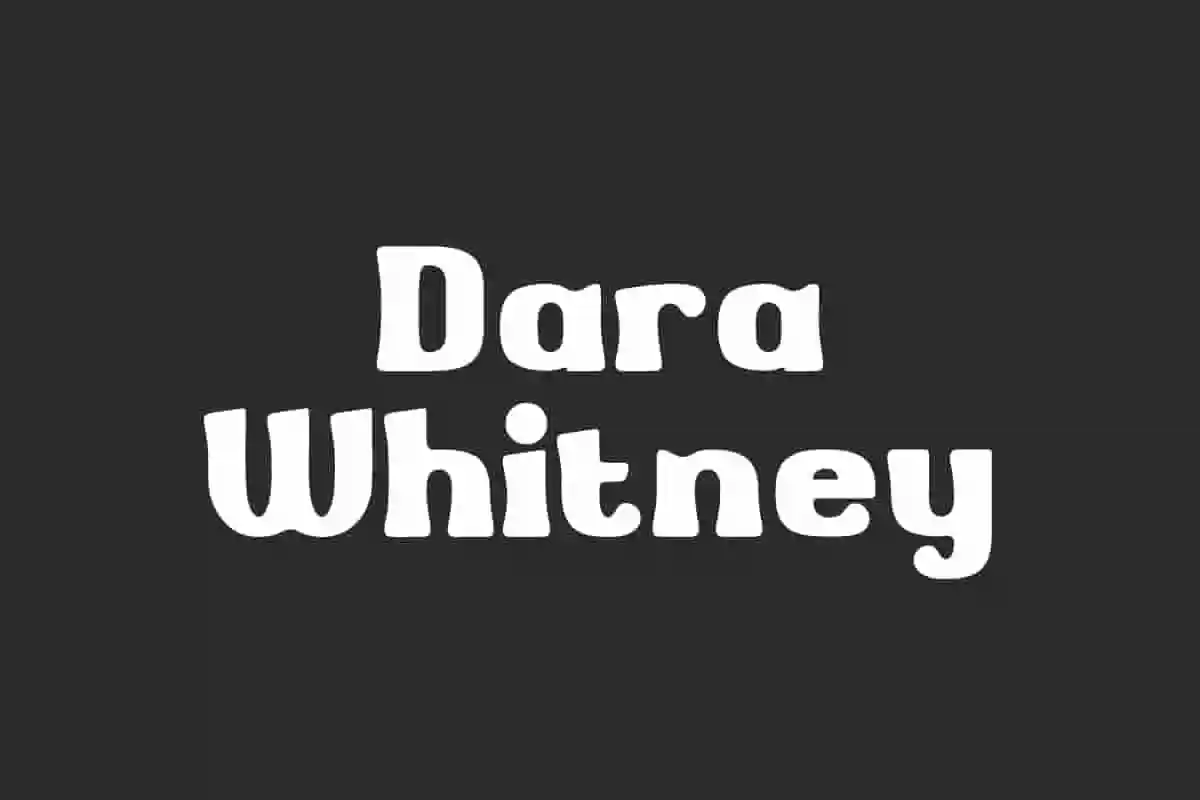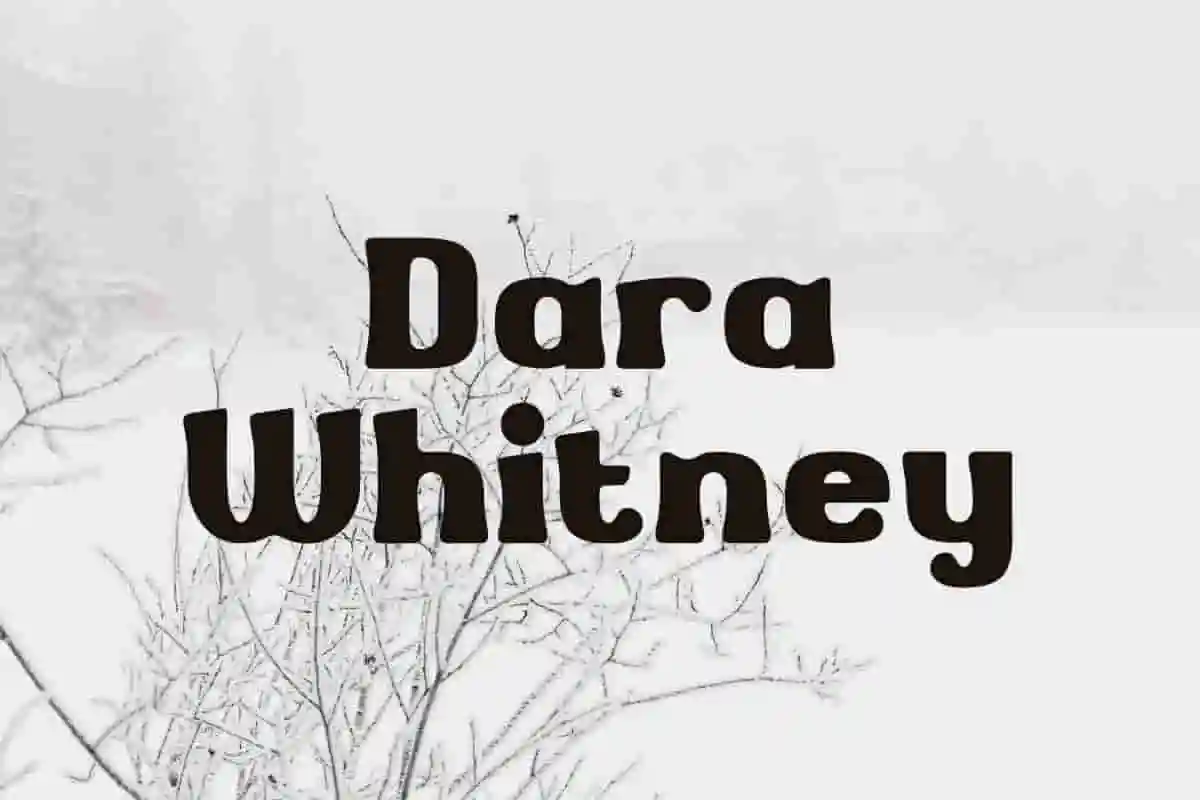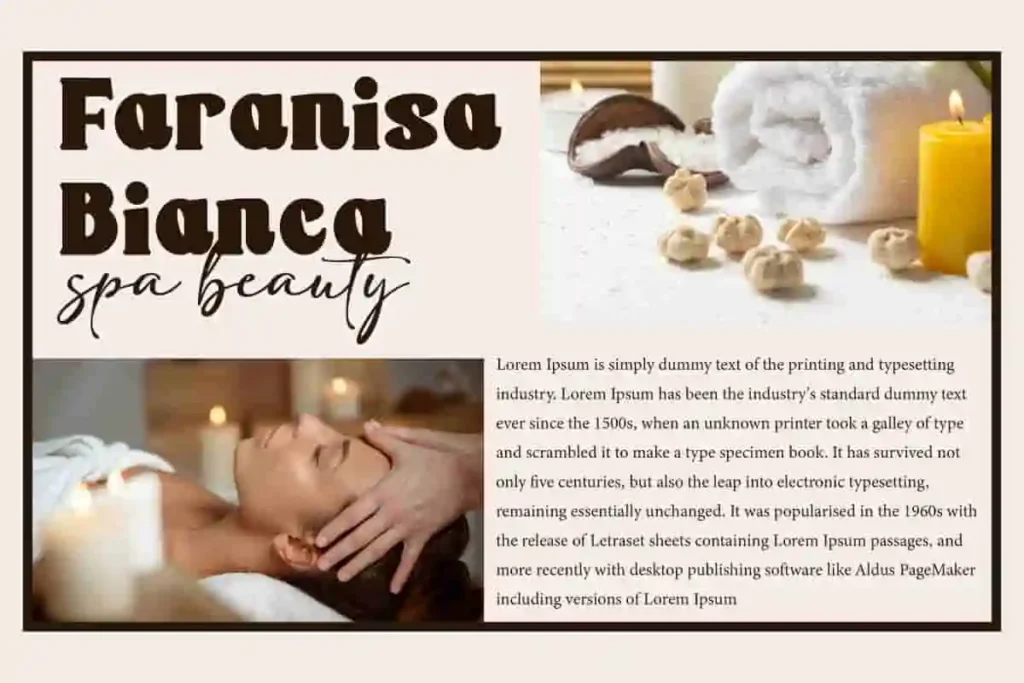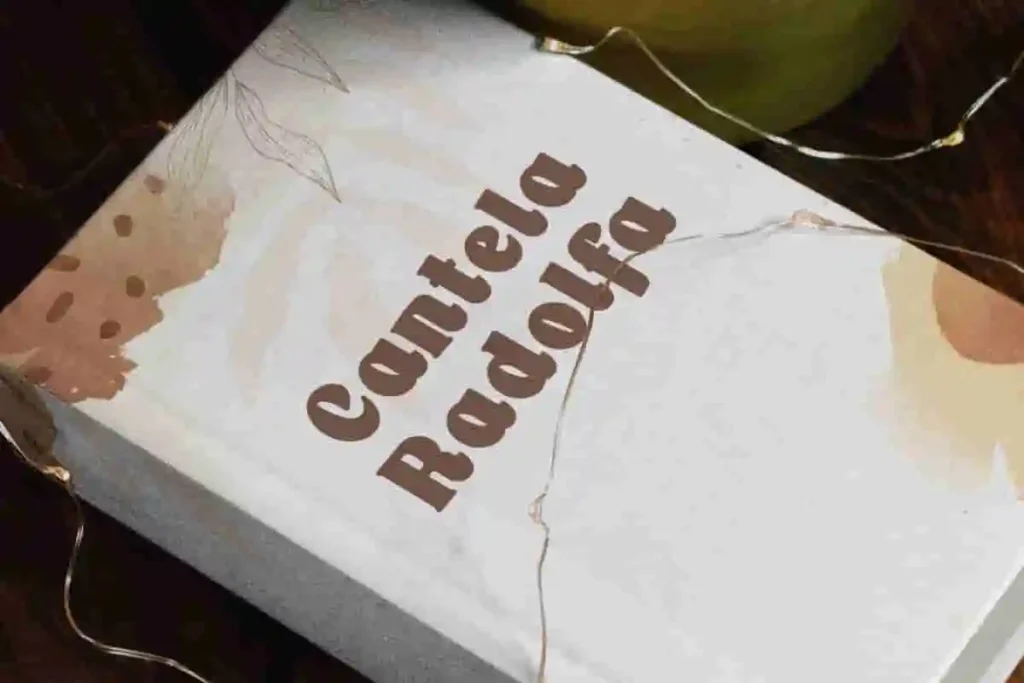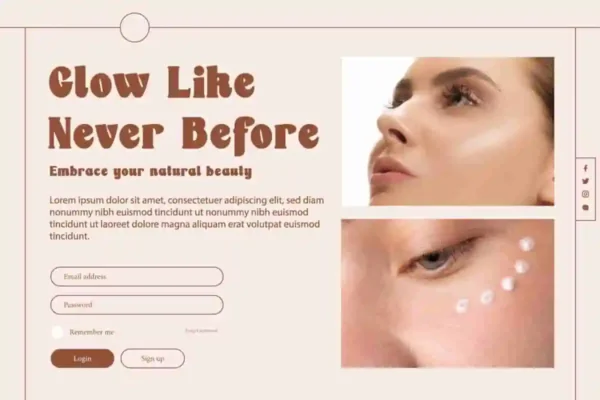
Dara Whitney Font is a fun sans serifdisplay font that presents a bold and a playful style character, combining vintage aesthetics with a modern touch. Its bold letterforms with smooth curves create a balance between playful and elegant impressions. This font will be perfect for various projects, such as branding image, brochure, label, magazine cover, mockup template, packaging, poster, quotes, signage, stationery, website, and more!
Dara Whitney Font includes a complete set of Uppercase and Lowercase Basic Characters, Numbers, Punctuation, and Symbols. This font gives off a strong and classy feel, making it a perfect choice for a variety of fields, such as advertising, beauty product, boutique, cafe, craft, event or wedding organizer, photography, real estate, restaurant, spa, travel, and so on.